Are you tired of using the same old boring fonts for your food-related projects? Craving something more delicious and visually enticing? Look no further than Canva’s collection of food fonts! Whether you’re creating a menu, recipe card, or promotional flyer, these tasty typefaces will take your designs to the next level. Say goodbye to plain text and hello to mouth-watering typography with Canva’s selection of food fonts. Let’s dive in and explore how you can elevate your projects with these delectable designs.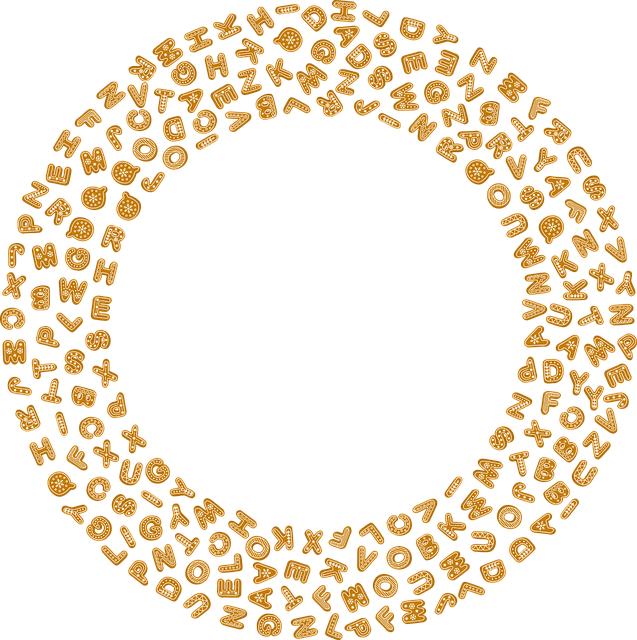
– Introduction to Food Fonts in Canva
Welcome to the world of Food Fonts in Canva
Food fonts are a delightful way to add a touch of personality to your designs. With Canva’s wide range of food-inspired fonts, you can bring a unique charm to your projects, whether it’s a menu for a restaurant, a food blog post, or a cooking class flyer. From playful pizza fonts to elegant cupcake scripts, there’s a font for every food lover out there!
Adding a food font to your design can evoke a sense of nostalgia, create a fun and inviting atmosphere, or simply make your content more visually appealing. With Canva’s user-friendly platform, incorporating these delicious fonts into your designs is as easy as pie. So why settle for boring standard fonts when you can spice up your creations with some food-inspired flair?
– Exploring Appetizing Typography Options
When it comes to typography, the options are truly endless. From sleek and modern sans-serif fonts to elegant and intricate script styles, there’s a typeface out there to suit every mood and message. One typography option that can instantly elevate the visual appeal of your design is using bold and vibrant fonts. These eye-catching choices demand attention and can inject energy and personality into your text.
For a more refined and classic look, consider exploring serif fonts. These fonts are known for their traditional appearance, with elegant little strokes or flourishes at the ends of letters. Serif fonts can add a touch of sophistication to your design, making them perfect for luxury brands or formal invitations. Don’t be afraid to mix and match different typography options to create a dynamic and visually appealing composition that truly speaks to your brand’s identity.
– Tips for Choosing the Right Food Font
When selecting the perfect food font for your project, it’s essential to consider a few key factors to ensure it aligns with the overall theme and message you want to convey. Firstly, think about the type of cuisine or food-related industry you are representing. For example, a sleek and modern font might be suitable for a high-end restaurant, while a playful and whimsical font could be perfect for a bakery or food blog.
Another important consideration is readability. Ensure the font you choose is easy to read, especially when used in smaller sizes or on menus. A clear and legible font will not only enhance the overall design but also make it easier for customers to navigate your content. Additionally, consider the mood and tone you want to evoke with your food font. Whether you’re aiming for a classy, rustic, or fun look, there are various styles and options to choose from to convey the desired aesthetic. Embrace creativity and experiment with different fonts to find the one that best represents your brand and captures the attention of your audience.
– Pairing Food Fonts with Complementary Designs
When it comes to designing a visually appealing menu or promotional material for a food-related business, choosing the right font can make a significant impact. Just like pairing the perfect wine with a meal, pairing food fonts with complementary designs can enhance the overall aesthetic and appeal to your target audience.
Consider using playful and whimsical fonts like “Sacramento” or “Snell Roundhand” for a dessert menu, adding a touch of fun and creativity. For a more sophisticated and elegant look, opt for sleek and modern fonts like “Montserrat” or “Avenir” for a high-end restaurant menu or catering service. Experiment with different combinations of fonts, taking into account factors like readability, tone, and overall branding. Remember that the goal is to create a harmonious balance between the text and visuals to entice and engage customers.
– Enhancing Your Projects with Delicious Typography
Typography plays a crucial role in enhancing the visual appeal and effectiveness of your projects. By choosing the right fonts and utilizing typography techniques, you can elevate the overall design and convey your message more effectively to your audience. One key aspect of delicious typography is font pairing. Mixing and matching fonts that complement each other can create a harmonious and visually appealing design. Consider pairing a bold sans-serif font for headings with a sleek serif font for body text to create a professional and modern look.
Q: Are food fonts free to use in Canva?
A: Yes, most food fonts in Canva are free to use, but there are also premium fonts available for purchase if you’re looking for more options.
Q: Can I mix and match food fonts with other typography styles?
A: Yes, you can mix and match food fonts with other typography styles in Canva to create a unique and visually appealing design for your project.
To Conclude
Unlock your creativity with Canva’s food fonts for mouth-watering projects that are sure to leave a lasting impression.